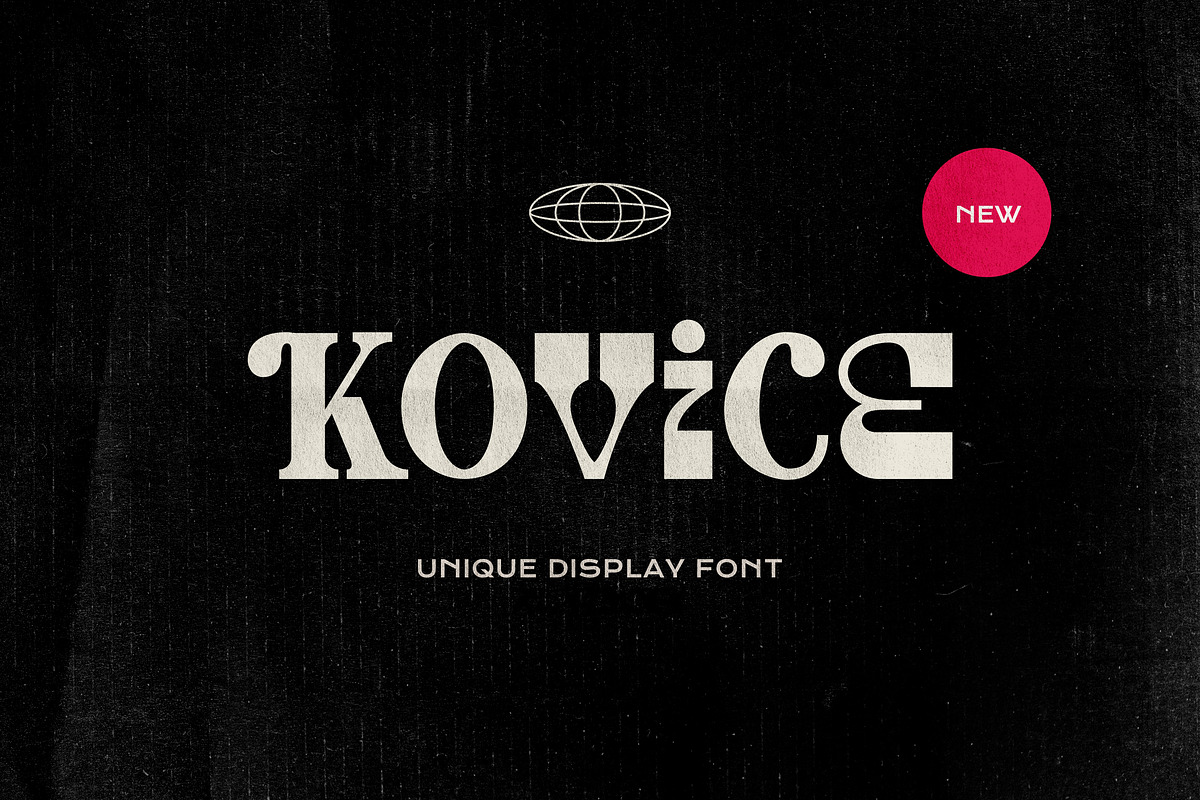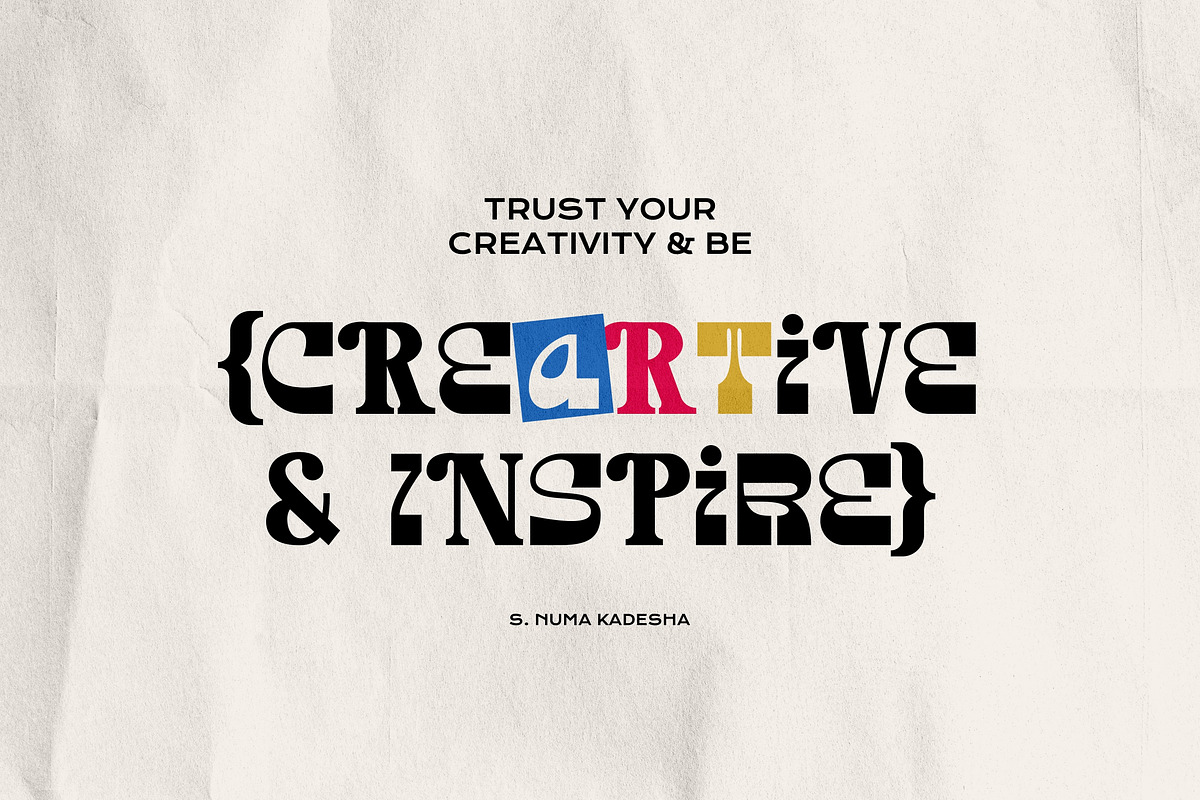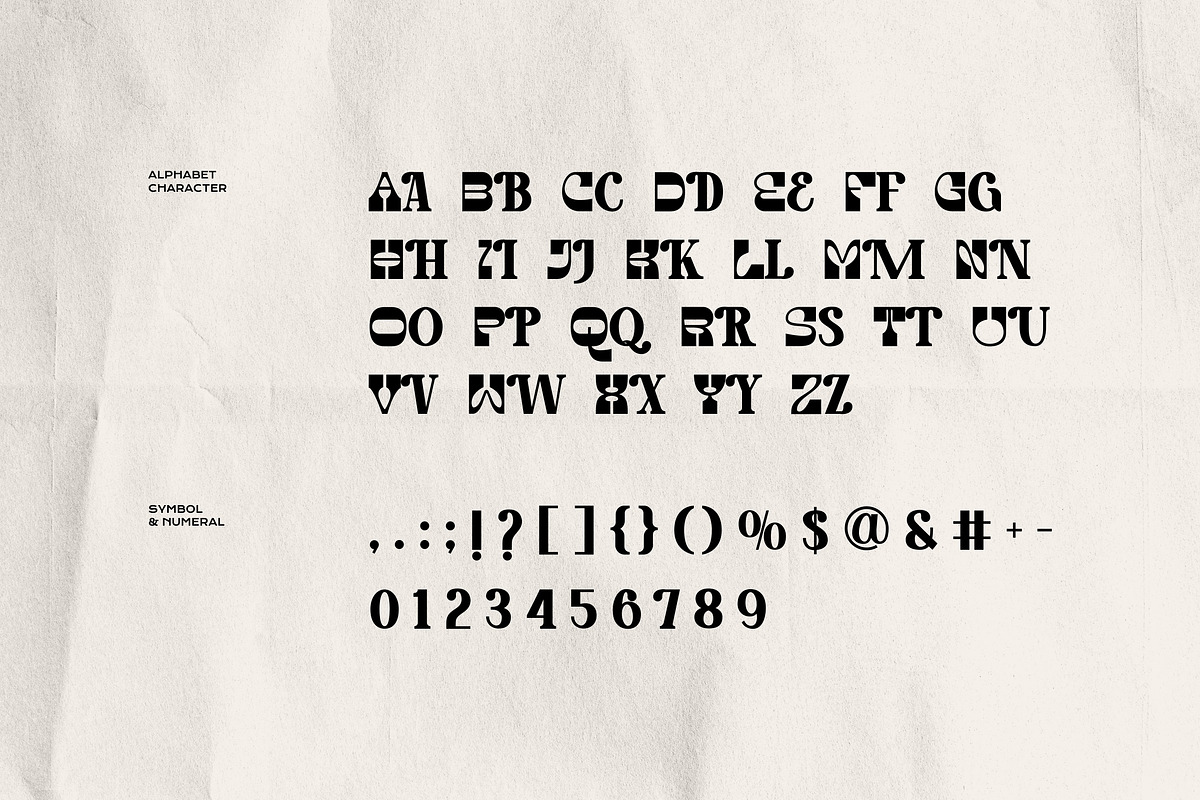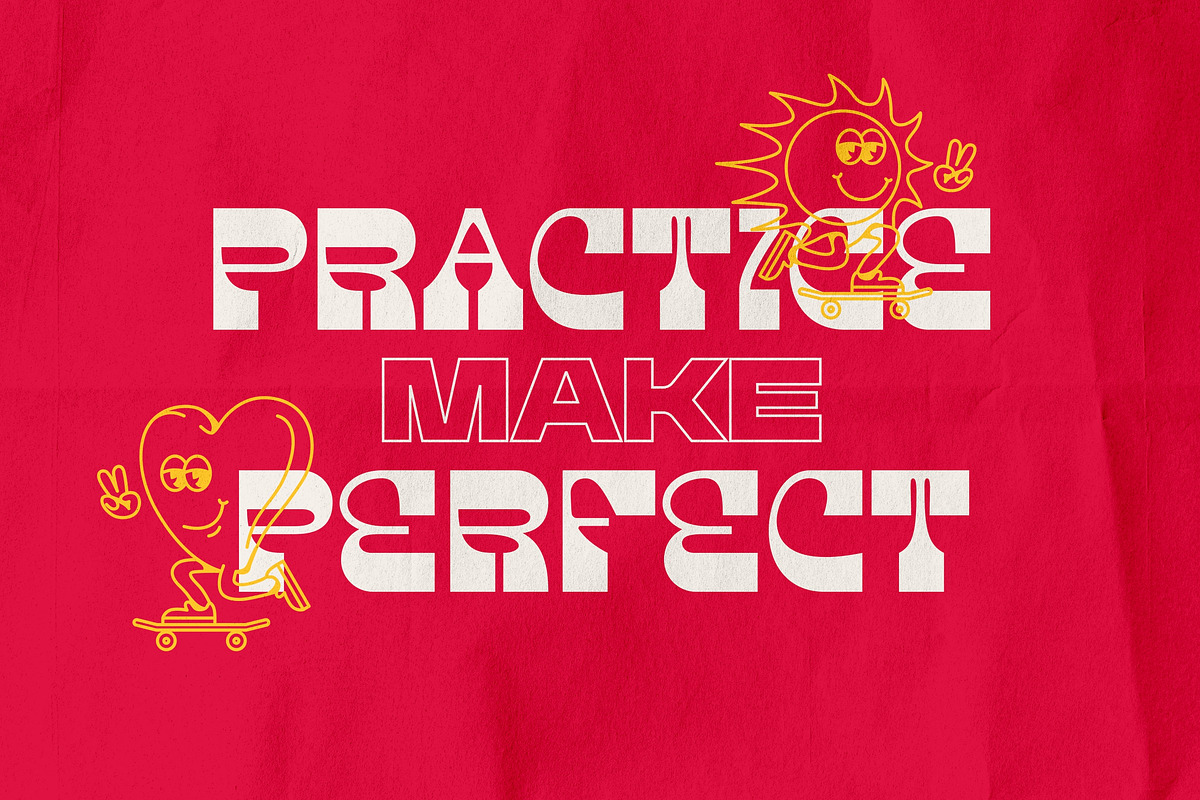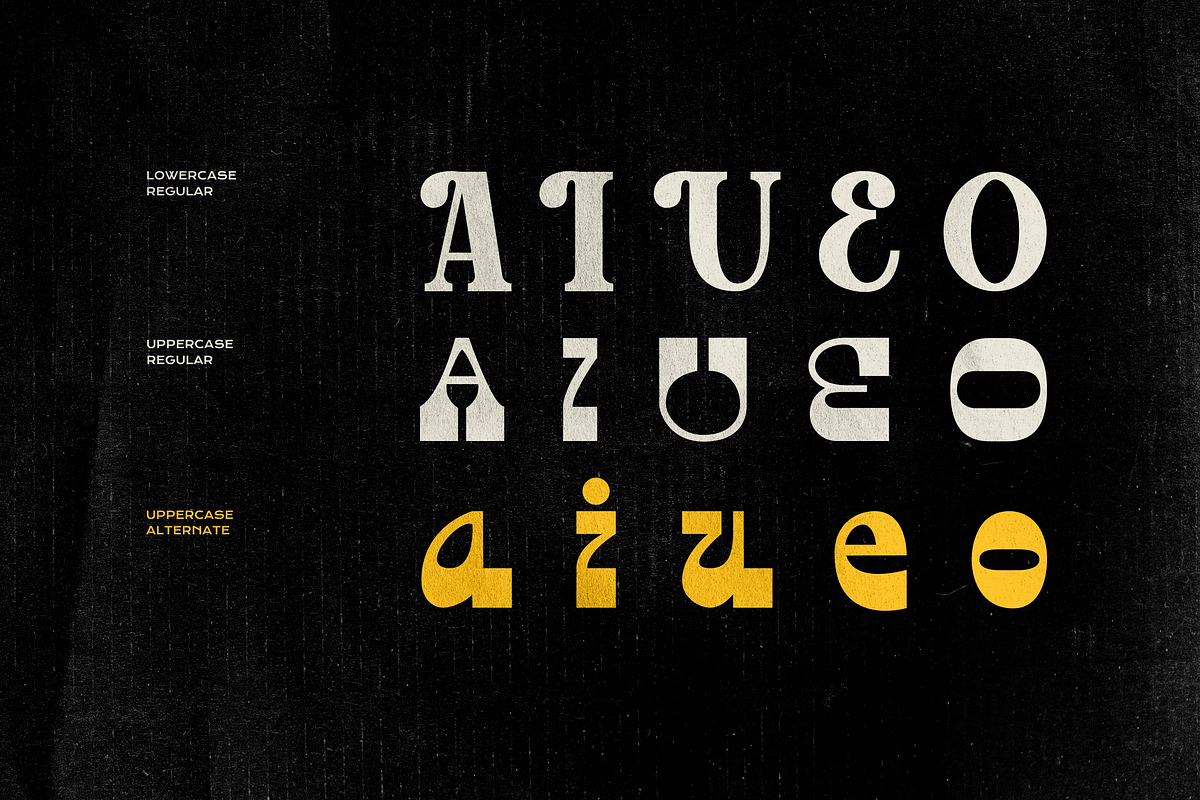
Kovice - Retro Experimental Typeface
KOVICE is a bold, experimental display font that masterfully blends retro psychedelic aesthetics with a clean, modern grit. Unconventional silhouettes, this typeface is designed to be the centerpiece of any visual project.
Each character features unique, liquid like terminals and geometric cutouts that challenge traditional letterforms, making it perfect for designers who want to break away from the mundane.
Whether used in branding, edgy editorial layouts, or vibrant poster art, KOVICE delivers a heavy dose of personality and visual rhythm. It comes packed with unique alternates and ligatures, allowing you to customize your typography into a true piece of custom lettering.
Kovice excels in creative design contexts such as headlines, posters, branding, advertising, packaging, playbills, magazines, signage, postcards, labels, covers, and merchandise, as well as any project aiming for a unique and standout appearance.
Its distinctive blend of letter shapes makes this font boldly theatrical, evoking a nostalgic retro feel merged seamlessly with contemporary style.